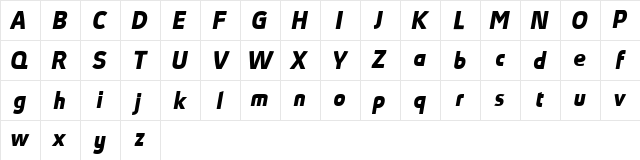
Absolut Pro reduced Italic
Foundry: Ingo Zimmermann
Designer: Ingo Zimmermann
Design Context for Absolut Pro reduced
Absolut Pro reduced is a composed and adaptable typeface that performs quietly and consistently across a wide range of design contexts. The slanted form adds forward momentum and visual energy.
Pro Tip: Use Absolut Pro reduced for emphasis, pull quotes, and subheadings where its slanted energy can add rhythm to the layout.
Who designed the Absolut Pro reduced Italic font?